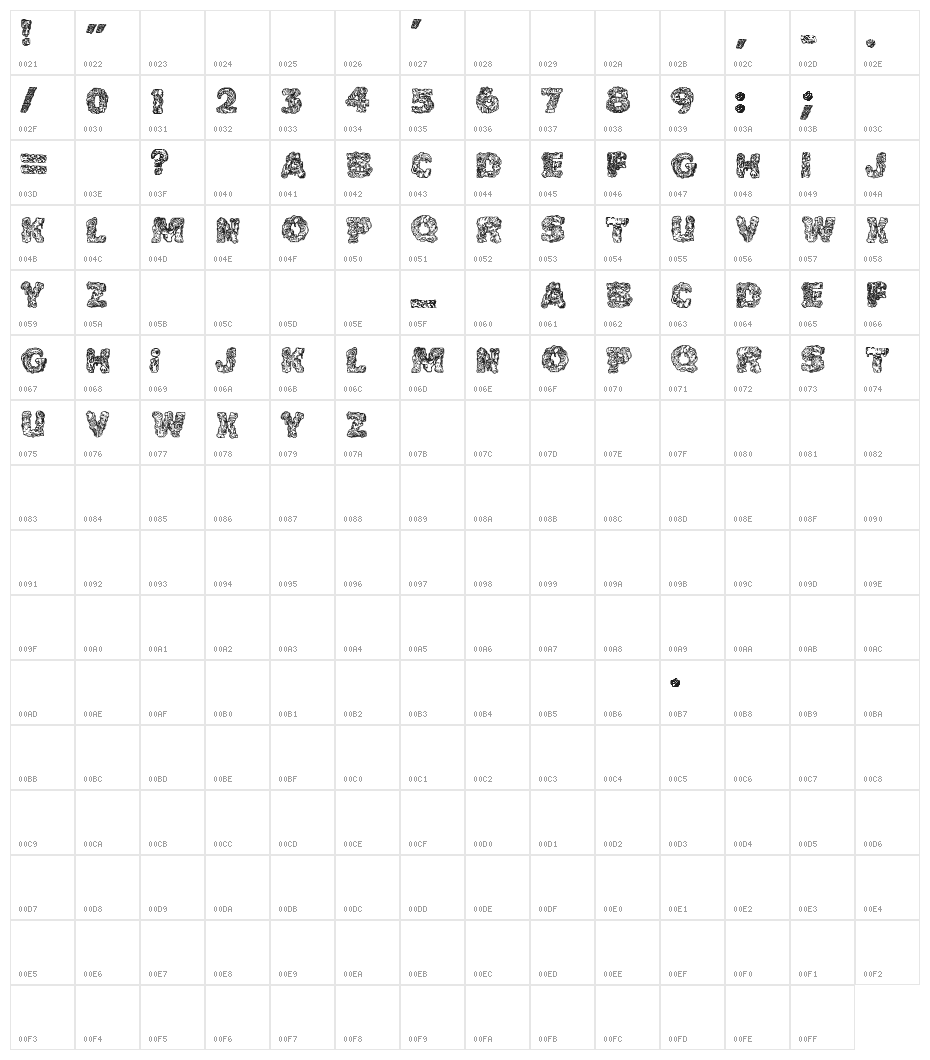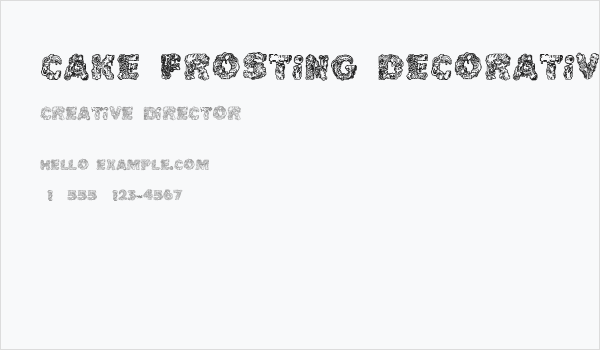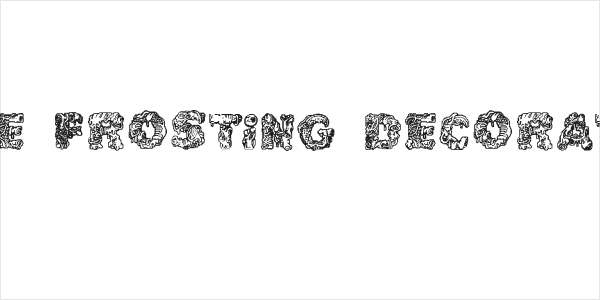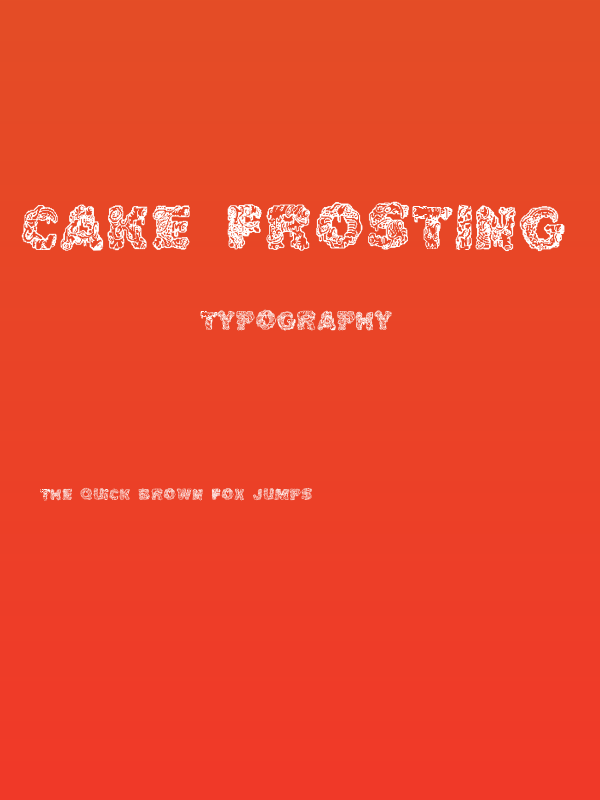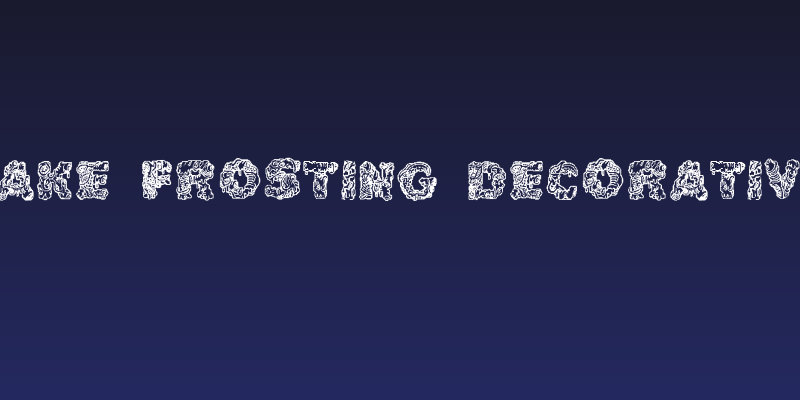
Cake Frosting Decorative Font
Cake Frosting Decorative Description
This font features a playful and whimsical design, reminiscent of cake frosting with intricate, decorative details. Each character is adorned with swirls and patterns that evoke a sense of fun and creativity. The letters are bold and eye-catching, making them ideal for projects that require a touch of whimsy and charm. The unique style captures attention with its intricate detailing, perfect for adding a decorative flair to any design. The font's artistic nature makes it suitable for creative projects, especially those related to food, celebrations, or children's themes.
| Proposed Projects | Ideal for birthday invitations, bakery branding, children's book covers, and festive event posters. |